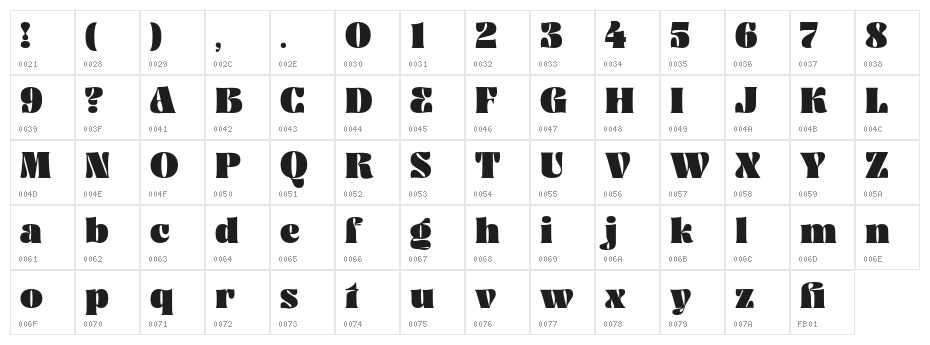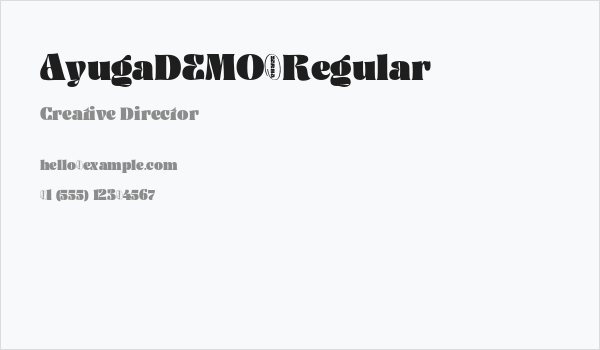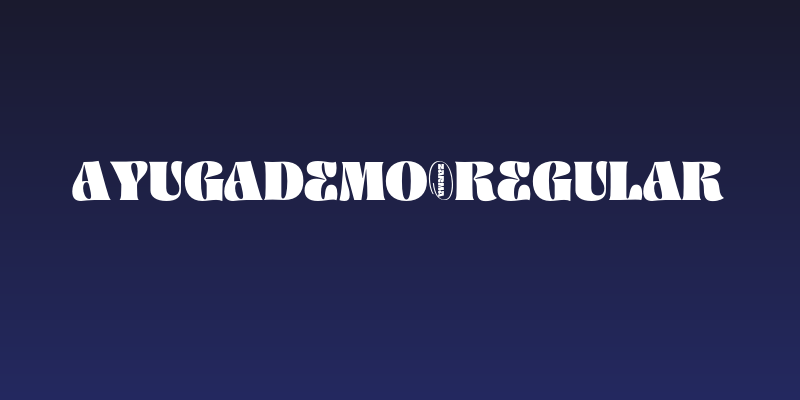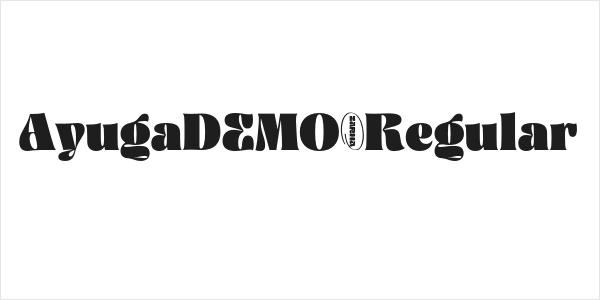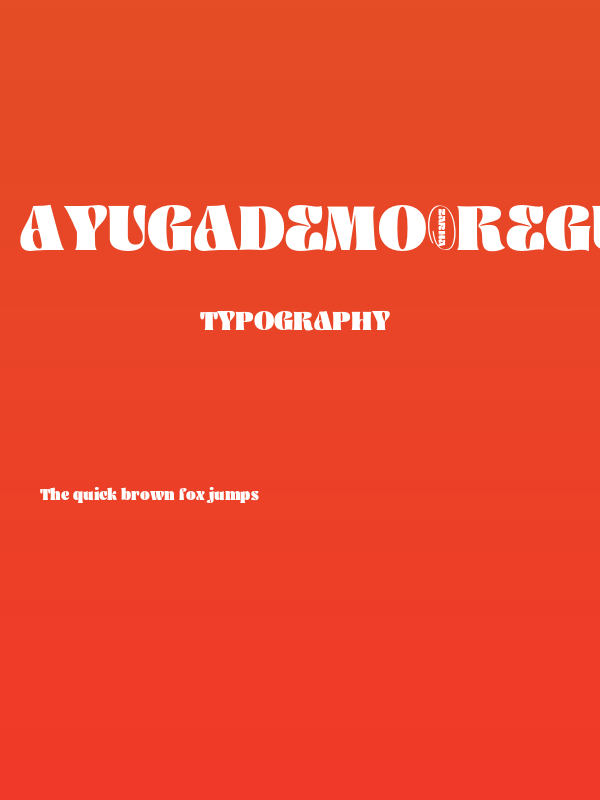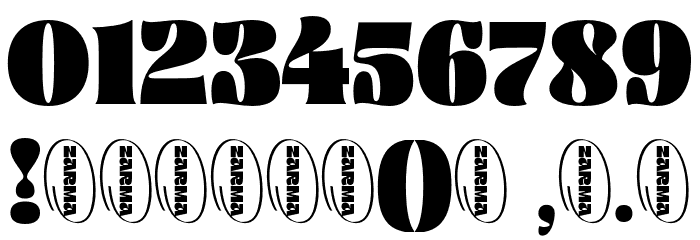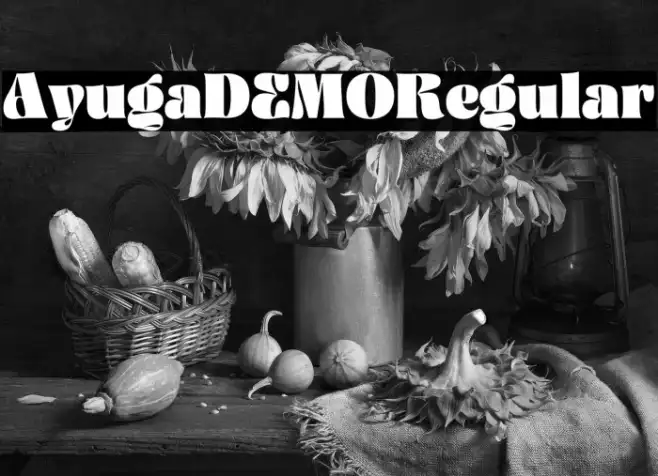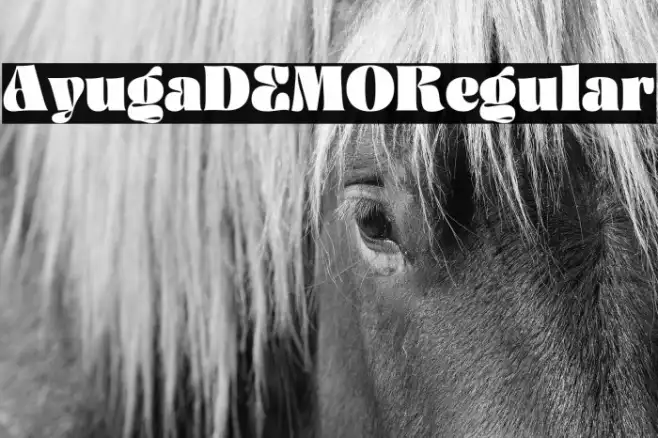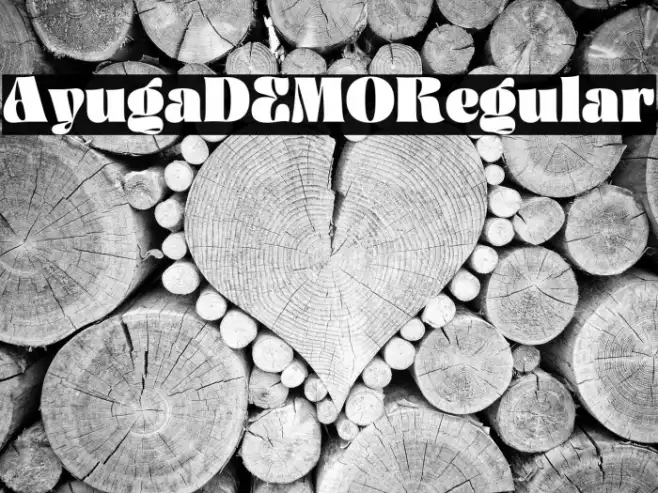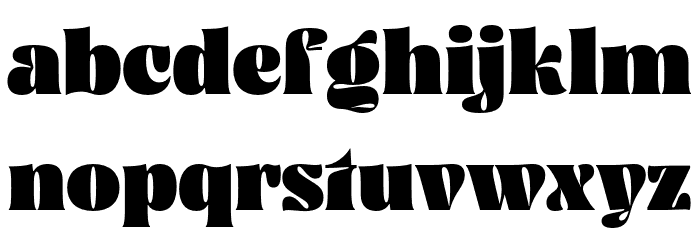
AyugaDEMO-Regular Font
AyugaDEMO-Regular Description
This font features a bold and playful design with a unique blend of thick and thin strokes, creating a dynamic and eye-catching appearance. The characters have a whimsical, almost theatrical flair, with exaggerated curves and a sense of movement. The uppercase letters are particularly striking, with a strong presence that commands attention. The lowercase letters maintain the same playful style, offering a cohesive look across the typeface. The numbers and special characters are equally bold and distinctive, making this font suitable for a variety of creative applications.
| Proposed Projects | Ideal for posters, branding, packaging, and any project that requires a bold, attention-grabbing typeface. |